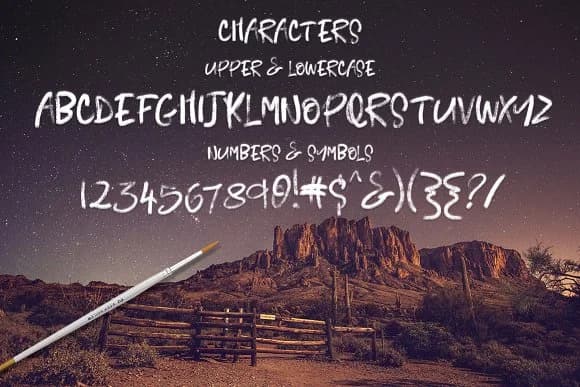
About Seriously Rad Font
Seriously Rad Font by Creativeqube Design is a lively handwritten script that infuses designs with spontaneous personality and contemporary flair. The organic letterforms flow with natural energy while maintaining a refined polish that works beautifully across both intimate and bold applications, making it an accessible choice for diverse creative visions and aesthetic directions.
This typeface shines in specialized design contexts where handmade character truly matters. Consider it for wedding invitation suites where elegance meets warmth, artisan product labels for craft makers and boutique brands, personalized greeting card designs, and eye-catching event signage that demands personality and visual distinction. The dynamic stroke variations and fluid curves give each application an authentic, bespoke feel that resonates with audiences seeking genuine character over manufactured aesthetics and cookie-cutter solutions.
- Elegant, Flowing, Seriously Rad
Seriously Rad Font is a script font that shines as a display or heading face. Pair it with a clean sans-serif or serif font for body text β the contrast creates a clear hierarchy while the two styles stay balanced and easy to read.